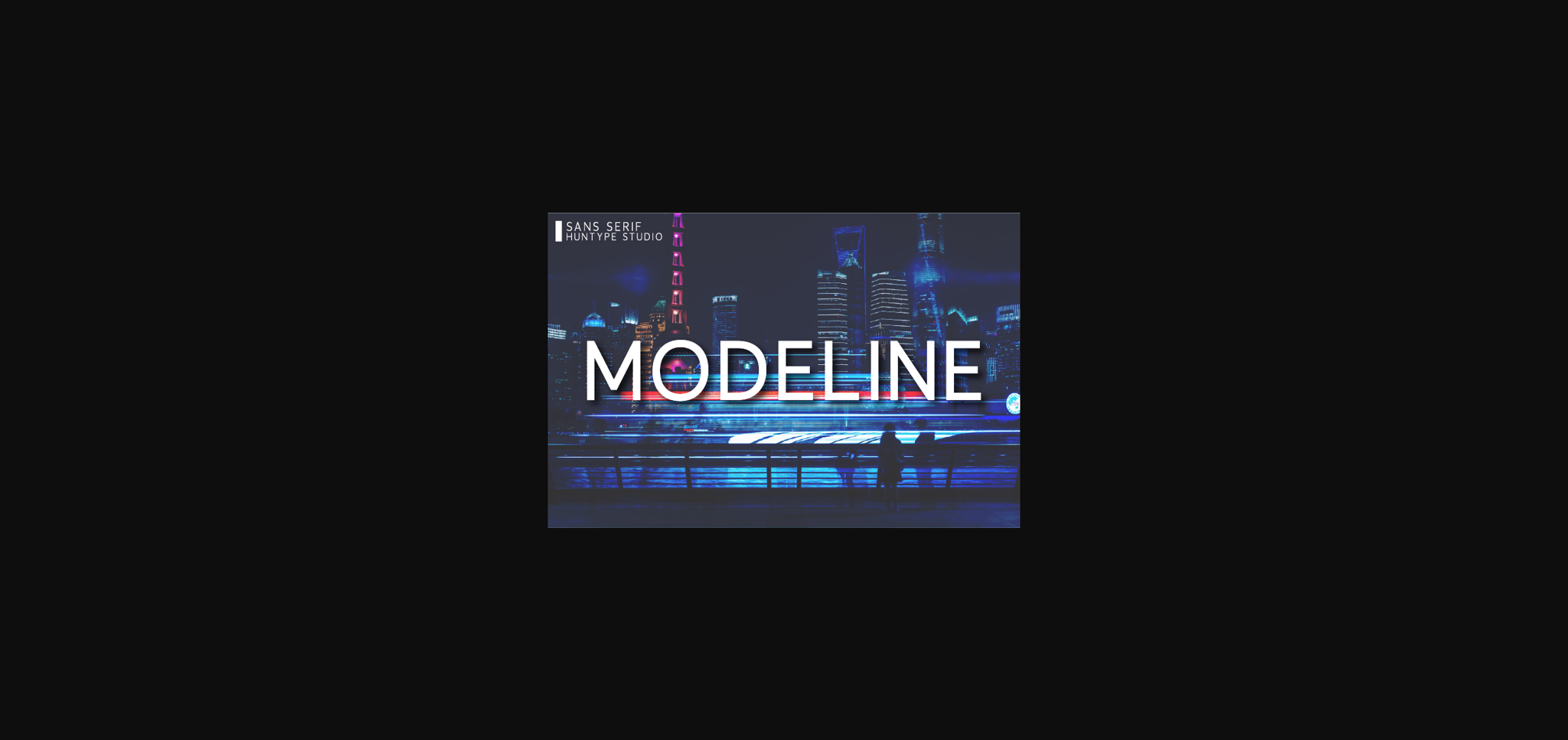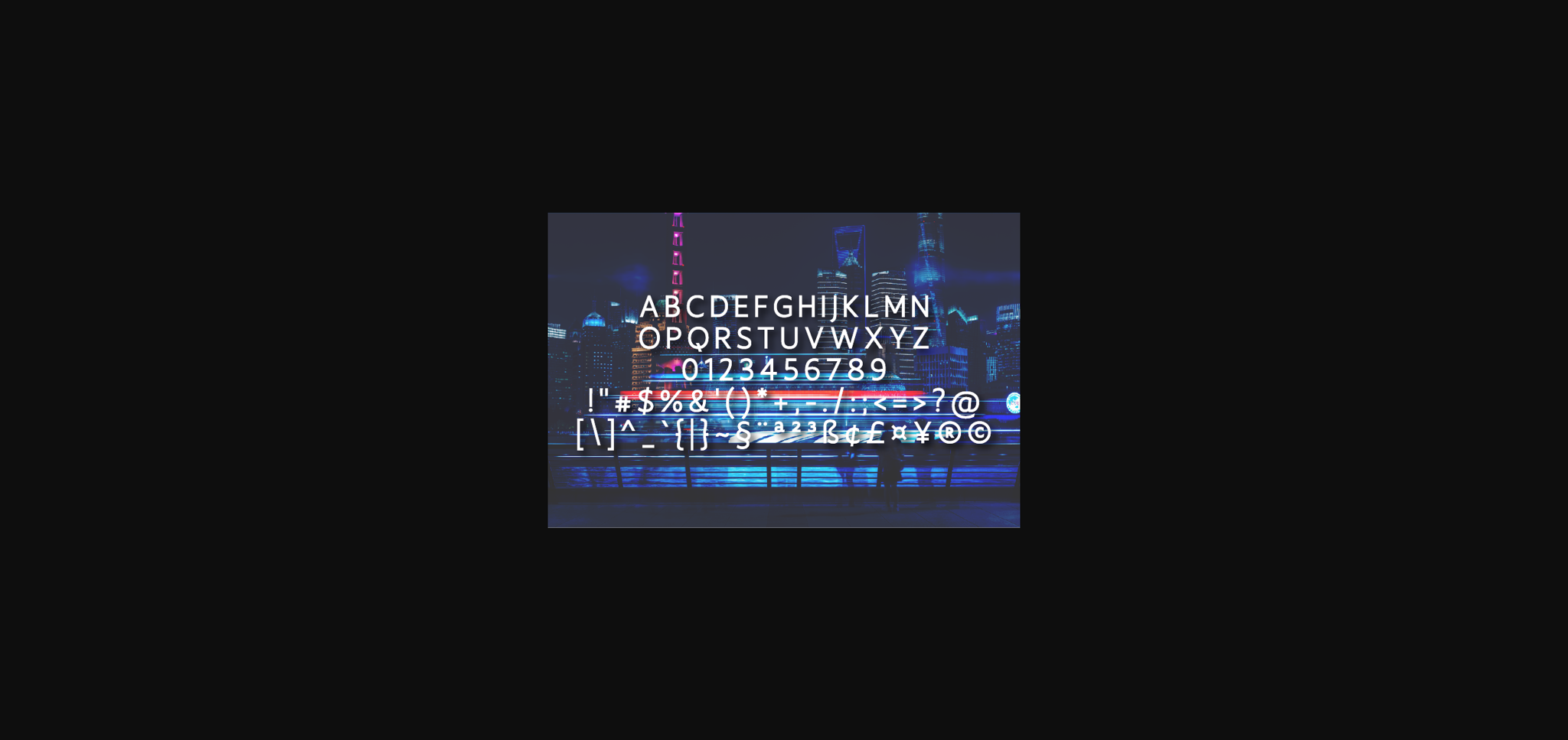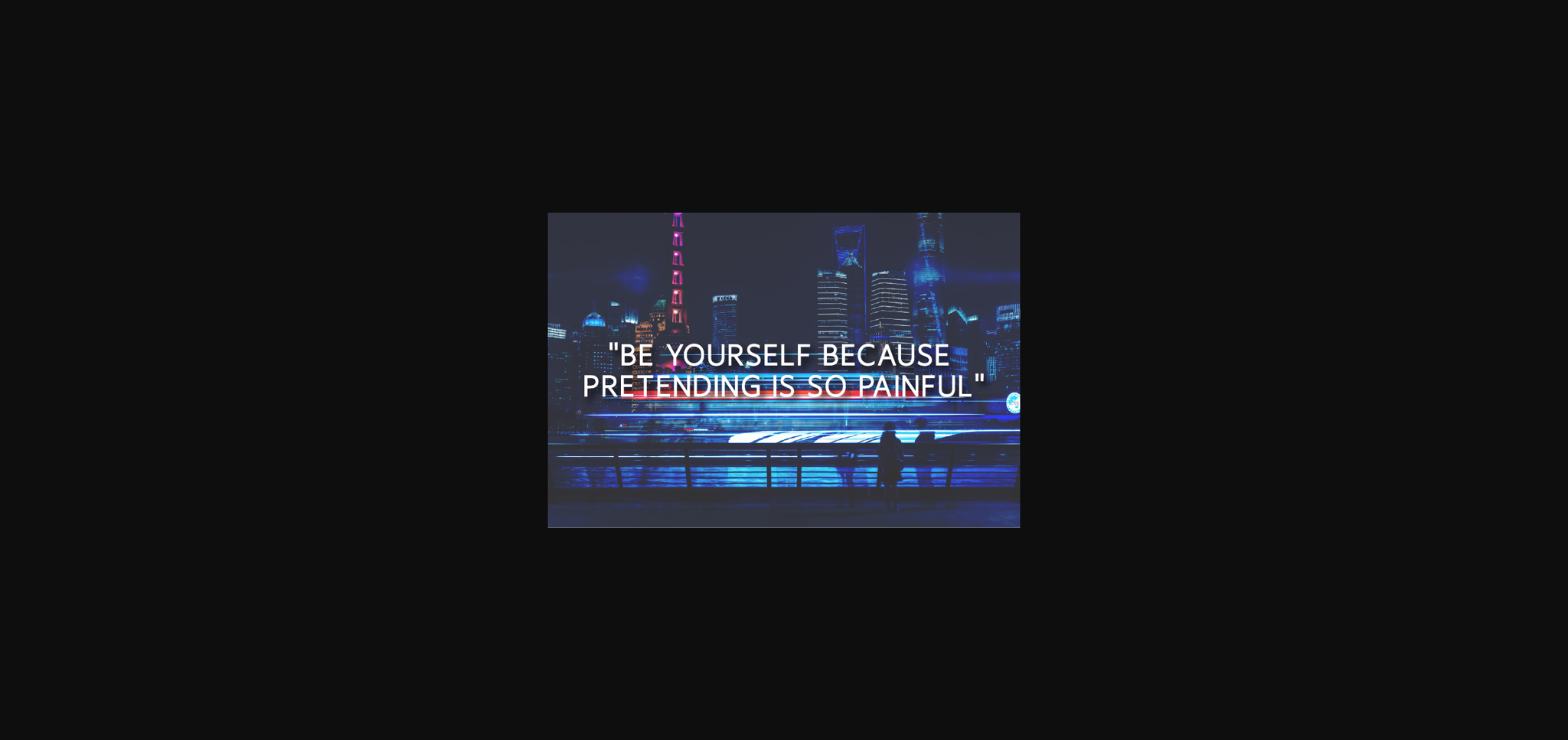
HomeSans Serif FontsModeline Font Sans Serif Fonts Modeline Font FacebookXPinterestWhatsApp 1 of 5 ... Modeline Font Poster 2... Modeline Font Poster 3... Modeline Font Poster 4... Modeline Font Poster 5... About Modeline Font Modeline is a modern and wide lettered sans serif font. Due to its neat and simple style, this font is versatile and looks stunning in nearly any context. The only limit is your imagination! DOWNLOAD NOW People also explored Alansky Font Angolia Script Font Catalyst Script Font Rustine Font Smith-Corona EC1100 Prestige Dreamelly Font Stellaluna Font Rosario Font Coat Hanger Font 356 0 TagsModeline Font Previous articleThompt FontNext articleSteworts Font LEAVE A REPLY Cancel reply Comment: Please enter your comment! Name:* Please enter your name here Email:* You have entered an incorrect email address! Please enter your email address here Website: Save my name, email, and website in this browser for the next time I comment. Personal Use Free Callisa Script Personal Use Free Read more about this font Bridgetown Font Personal Use Free Read more about this font The Relapse Personal Use Free Read more about this font Eaglese Personal Use Free Read more about this font BLOG 5 Fonts That Will Dominate Design Trends in 2026 5 Fonts for 2026 That Will Dominate Design Trends Typography plays a critical role in visual communication, and as we look ahead to 2026, it’s... To increase your work productivity, choose the most readable fonts. Best Fonts for T-Shirt Design – Top 2025 Picks Top 10 Handwritten Fonts That Elevate Your Designs